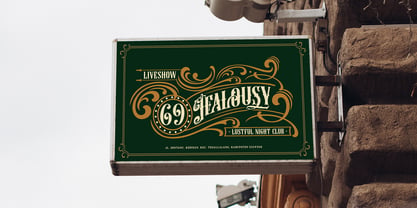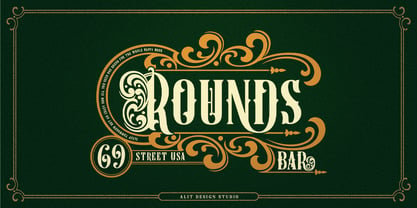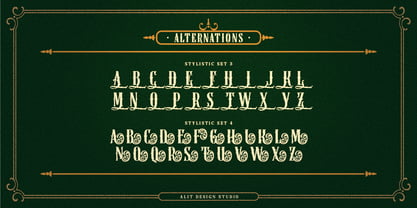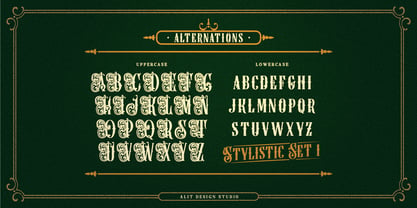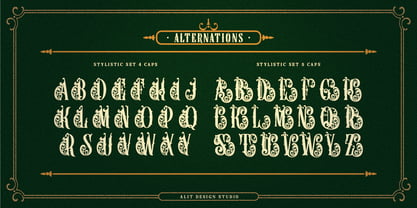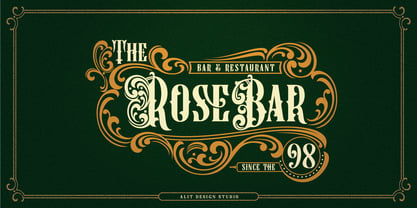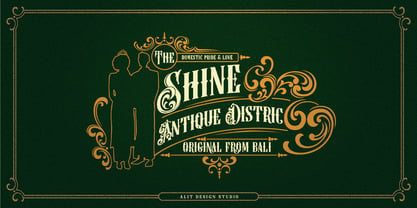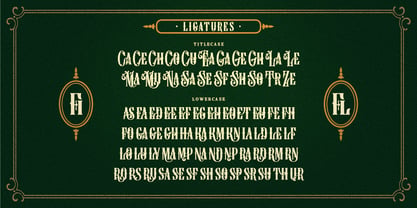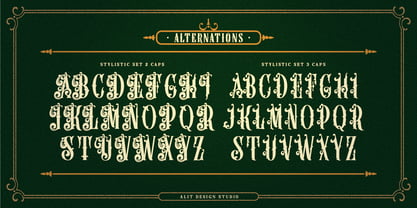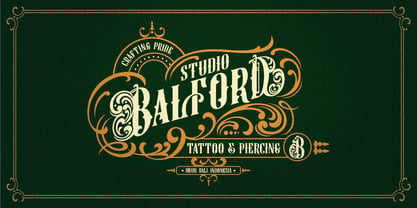
Back Honey
Die Schriftfamilie Back Honey wurde von Alit Suarnegara entworfen und von Alit Design veröffentlicht. Back Honey enthält 1 Stile. Mehr über diese Familie
Introducing Back Honey Victorian Font, a meticulously crafted typeface that brings the essence of Victorian elegance to modern design. This luxurious serif font combines vintage charm with intricate ornamentation, ideal for projects that call for a touch of classic sophistication.
Back Honey Victorian Font is designed to capture the opulent details of the Victorian era, offering an array of features that allow endless creativity. With 784 beautifully designed characters, each letter exudes the charm of historical type while still providing exceptional legibility and style.
Features:
• Extensive Character Set: Featuring 784 characters, including upper and lowercase letters, punctuation, and numerals, this font is fully equipped to handle diverse creative needs.
• Many Alternatives: Offering a variety of alternative characters, allowing you to customize the look and feel of your text with a range of stylistic options.
• Elegant Ligatures: Special ligatures add seamless connections between letters, creating smooth and sophisticated word formations.
• Decorative Swashes: Unique swash options let you add expressive flourishes to letters, perfect for logos, invitations, and decorative headlines.
• Multilingual Support: Designed with international creators in mind, Black Honey Victorian Font supports multiple languages, making it a versatile choice for global projects.
Embrace the elegance of the past with Back Honey Victorian Font, where historical artistry meets modern functionality.